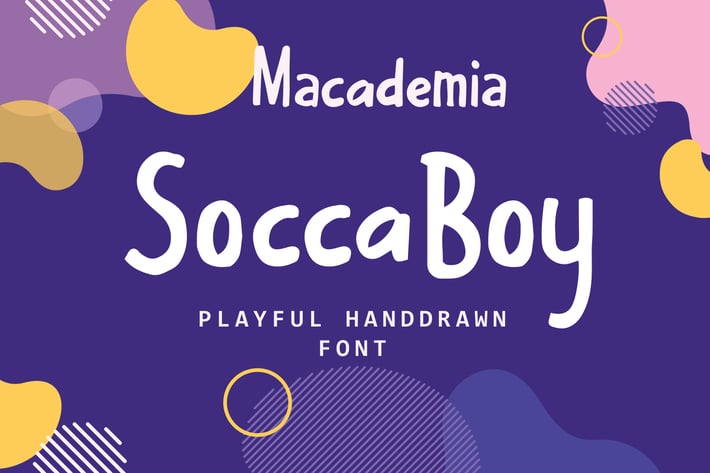
Soccaboy - Playful Handrawn Font
Soccaboy is perfect to use for Logotype, Letterhead, Poster, Apparel Design, Label and etc.
The alternative characters were divided into several features such as Stylistic Alternates and Ligature.